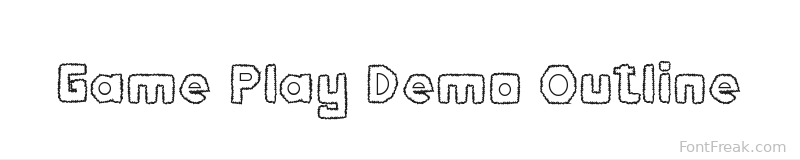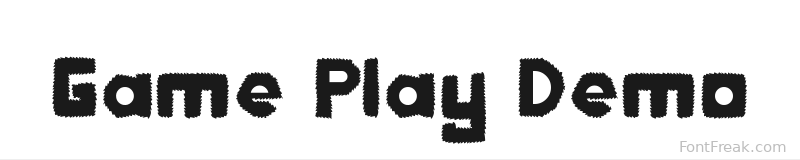
Game Play Demo Italic
Game Play Demo Outline
Game Play Demo
Game Play Demo Italic, crafted by Noah Type, is a standout display font that embodies the spirit of gaming and playful design. This italicized typeface features a unique outline style characterized by a bold stroke weight and a dynamic appearance, making it ideal for capturing attention. The letters boast a fun, energetic flair, with slightly exaggerated curves and angles that evoke a sense of movement and excitement, perfect for any gaming-themed project.
The visual characteristics of Game Play Demo Italic lend themselves to various applications. The font's playful design makes it an excellent choice for video game covers, promotional materials, and event flyers. Its energetic style also suits merchandise branding and merchandise labels, appealing to both gamers and enthusiasts alike. Moreover, it can be effectively utilized in social media graphics and online content, where grabbing the viewer's attention is essential.
Targeting graphic designers, small business owners, and content creators, Game Play Demo Italic is versatile enough to cater to a wide audience. Whether you're developing marketing materials for a new game launch or designing eye-catching visuals for a gaming event, this font will help convey a sense of fun and excitement.
What sets Game Play Demo Italic apart is its ability to blend playfulness with readability. The font has a unique charm that resonates with a youthful audience while maintaining clarity, ensuring that your message stands out without sacrificing comprehension. For those looking for a creative touch in their designs, the Game Play Demo Italic font free download offers an opportunity to incorporate a distinctive style that elevates any project. Embrace the spirit of gaming and creativity with this exceptional typeface.